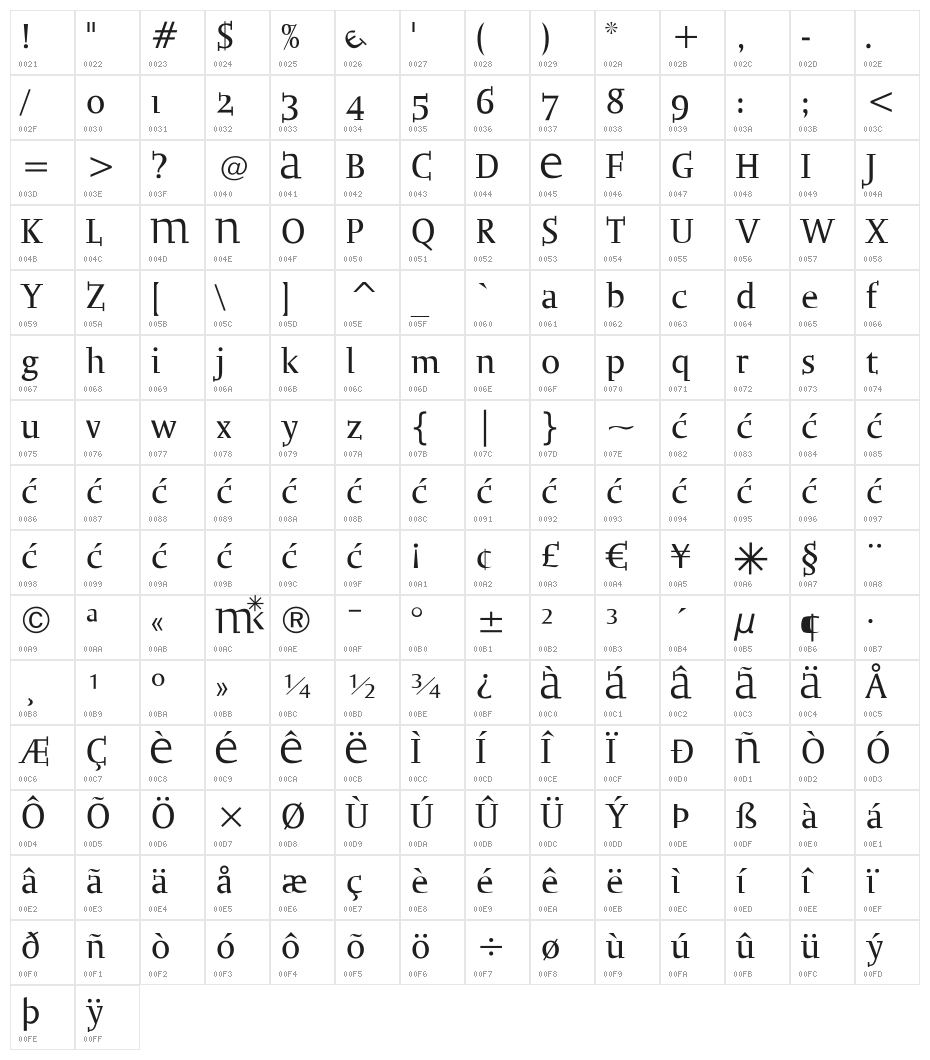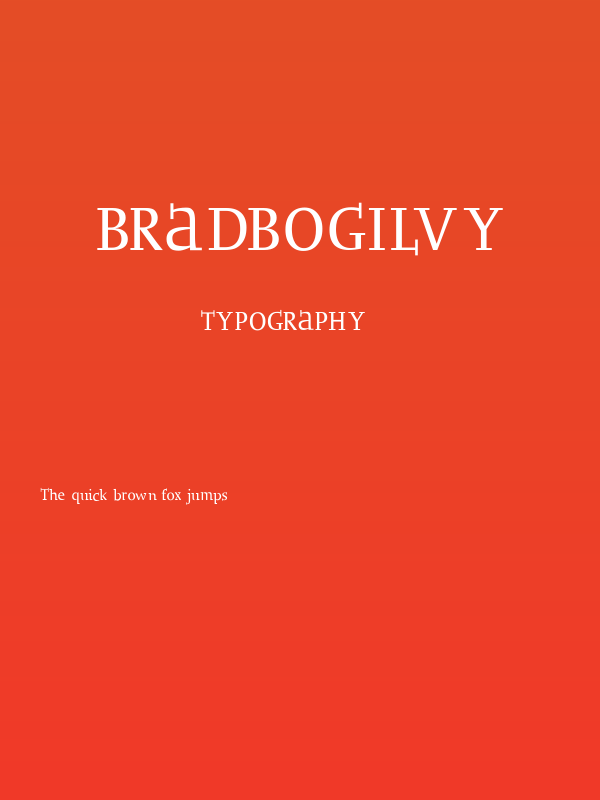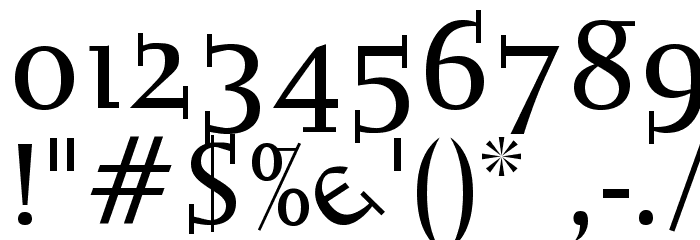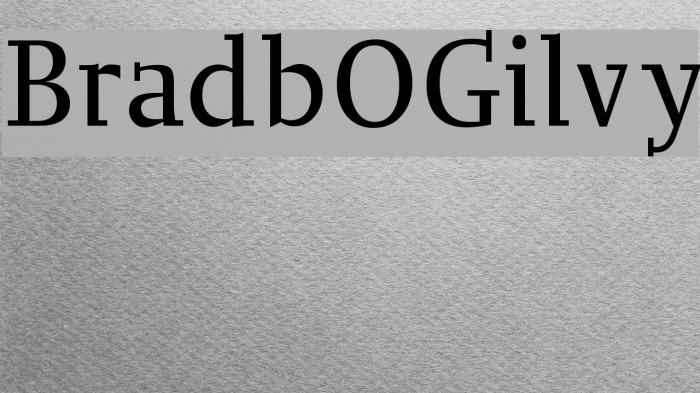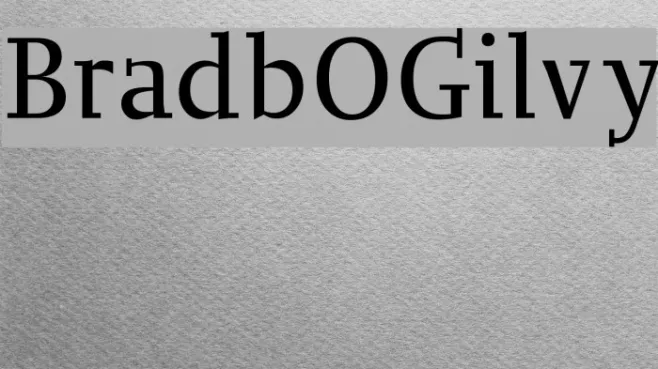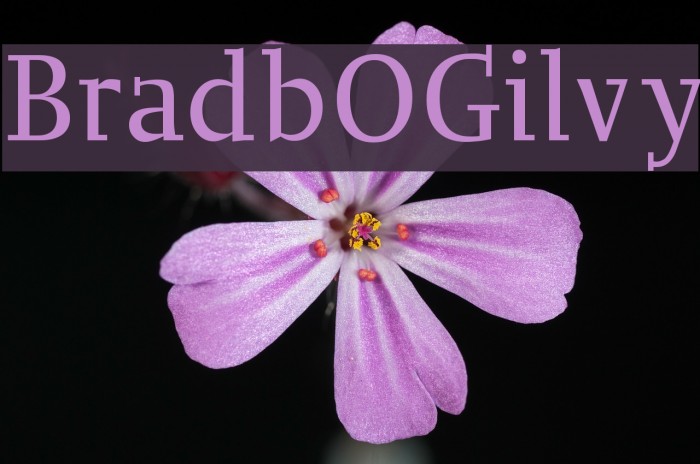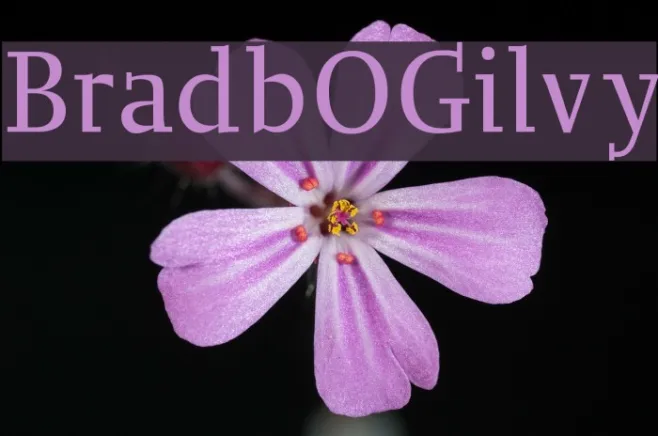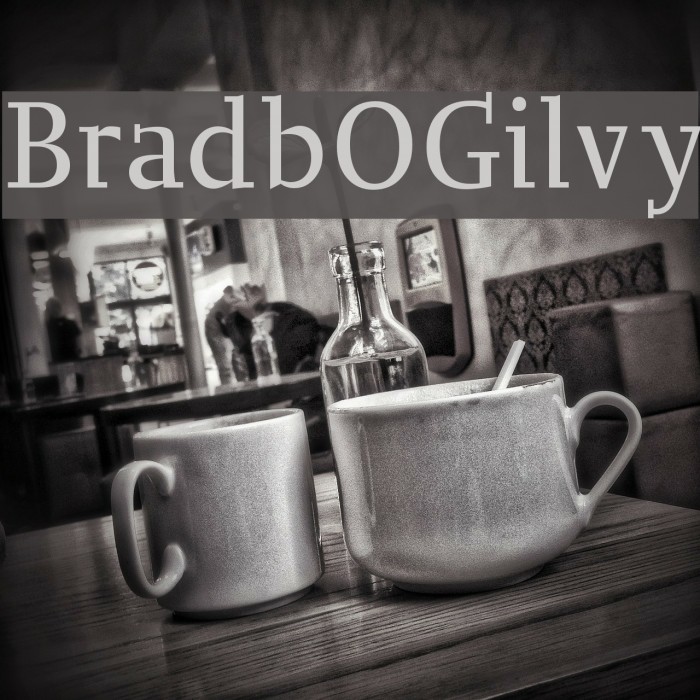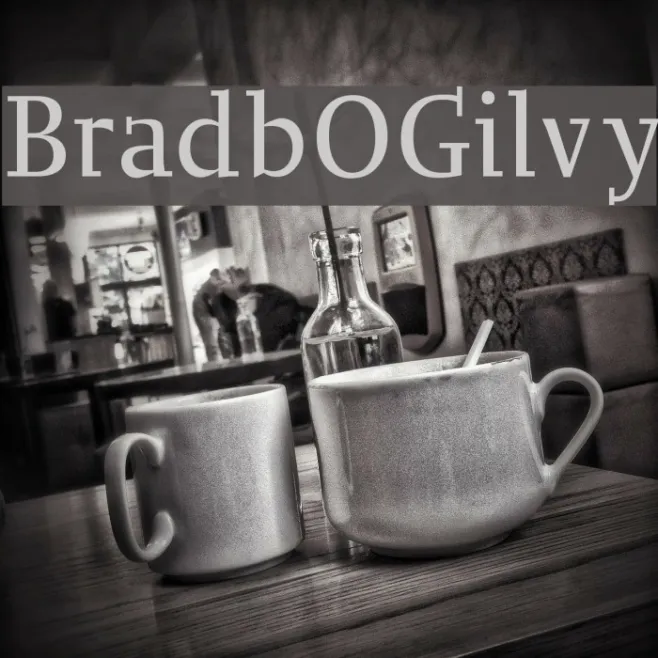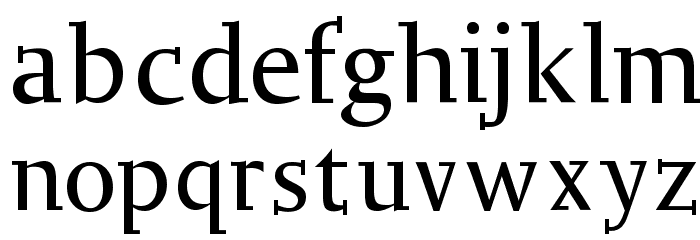
BradbOGilvy Font
BradbOGilvy Description
This font features a classic serif style with elegant and refined strokes. The uppercase letters are bold and prominent, with distinct serifs that add a touch of sophistication. The lowercase letters maintain a consistent style, offering a harmonious blend with the uppercase. Numbers are clear and legible, making them suitable for various applications. Special characters are well-defined, ensuring versatility in design projects. The overall appearance is both traditional and modern, making it adaptable for a wide range of uses.